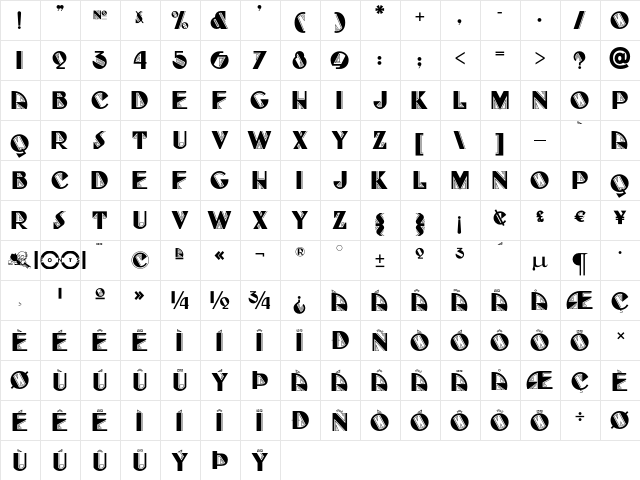
FullTilt Boogie NF Regular Font Preview
FullTilt Boogie NF Regular
Design Context for FullTilt Boogie NF Typeface
FullTilt Boogie NF is a composed and adaptable typeface that performs quietly and consistently across a wide range of design contexts.